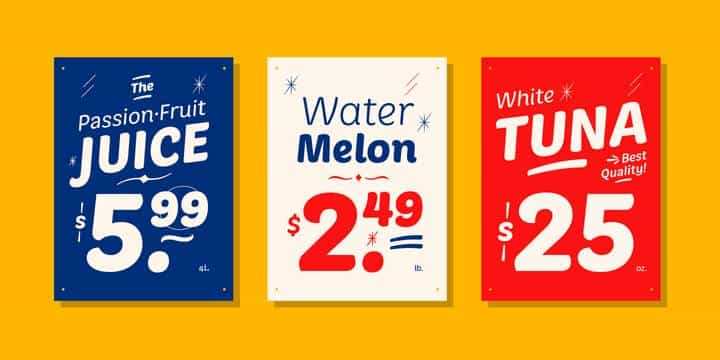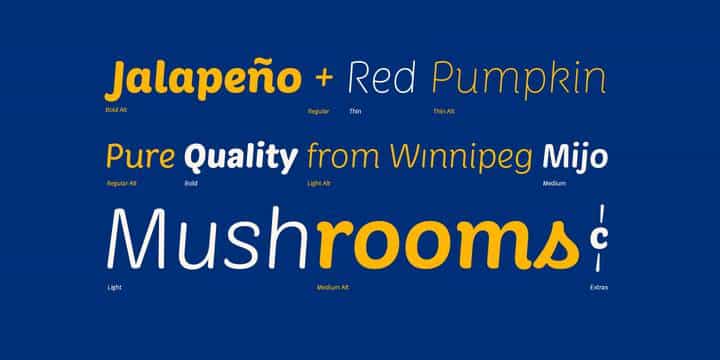
Latinotype proudly presents Market!Based upon hand-painted signs from grocery stores, Market has a unique style that features elements of both “casual script” alphabets and traditional Roman letters in one font, allowing it to render large titles to small body text.